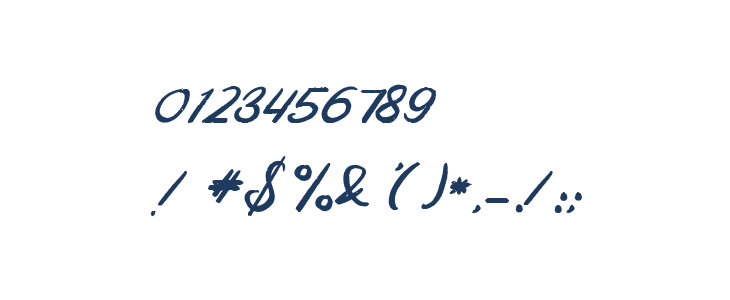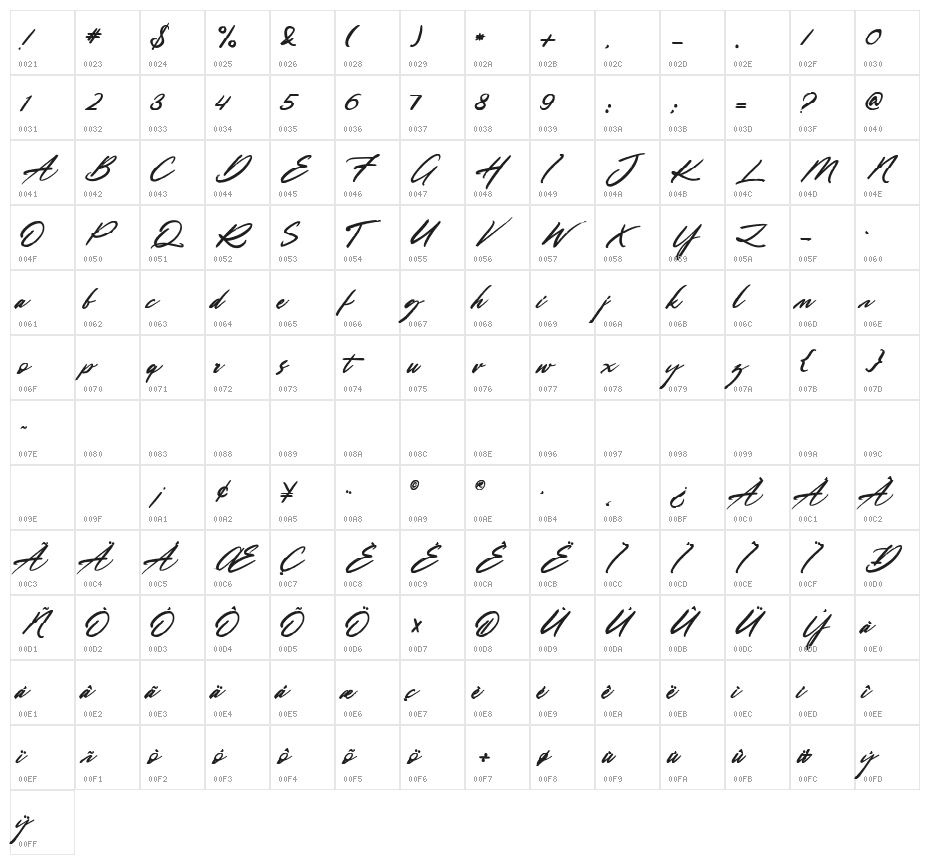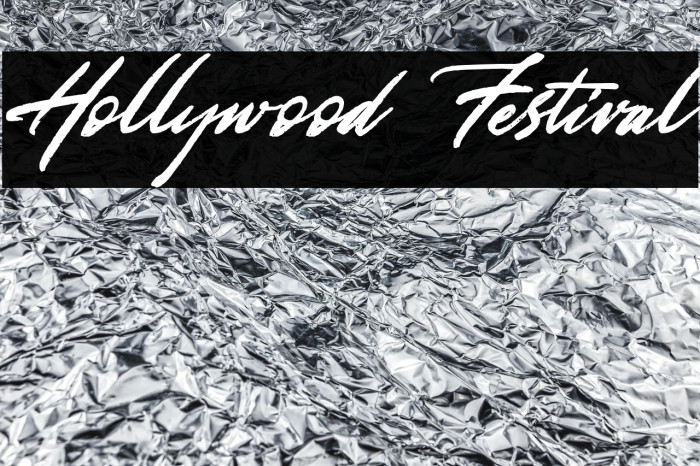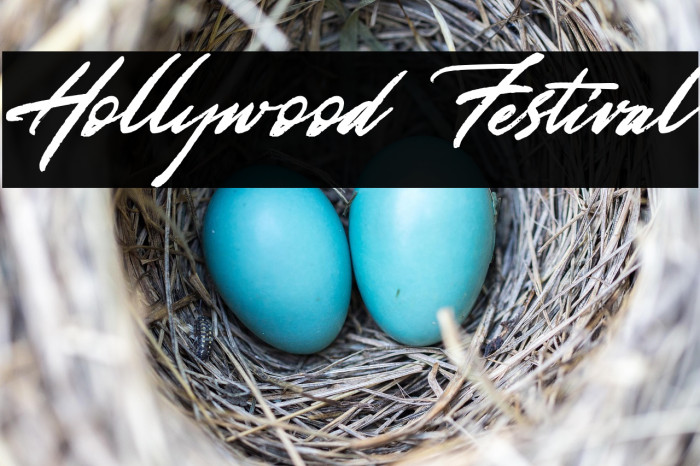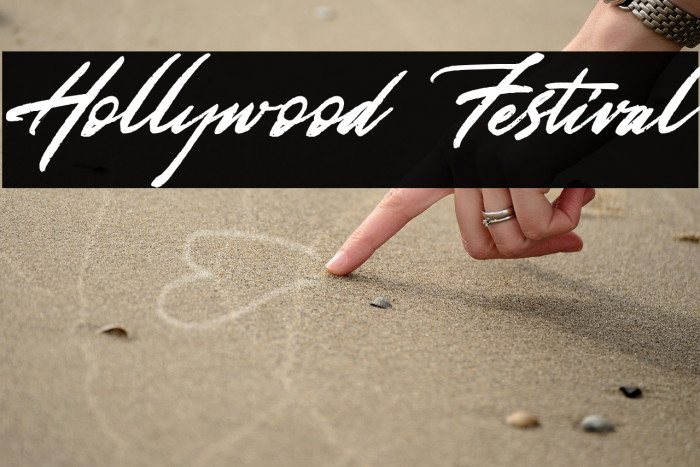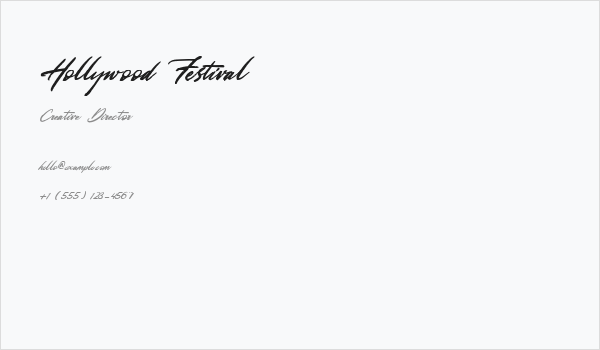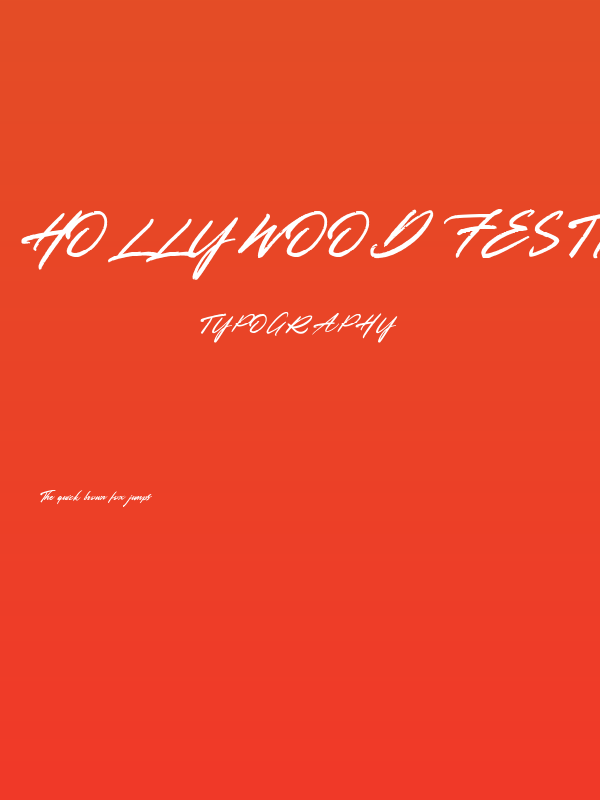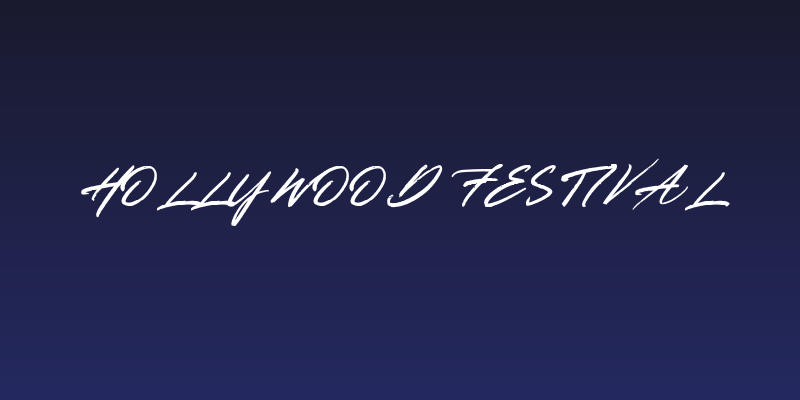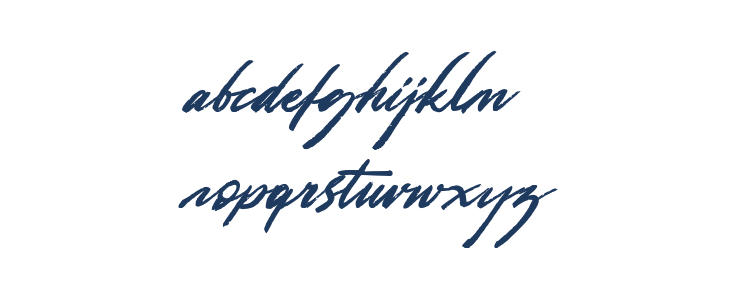
Hollywood Festival Font
Hollywood Festival Description
This font exudes a dynamic and elegant script style, characterized by its fluid, cursive strokes that mimic the natural flow of handwriting. The uppercase letters are bold and sweeping, with a slight slant that adds a sense of motion and grace. The lowercase letters maintain a consistent style, with smooth connections and a balanced rhythm. The numerals are clear and distinct, following the same cursive theme, while the special characters integrate seamlessly into the overall design. This font's lively and sophisticated appearance makes it ideal for projects that require a personal touch or a sense of elegance.
| Overall Style | Elegant, Dynamic |